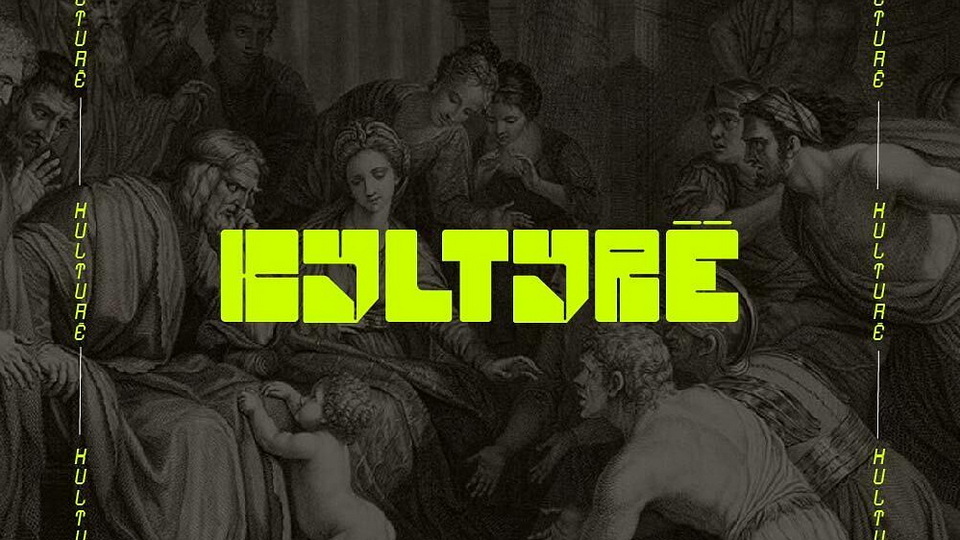
Feb 7, 2025DisplayKYLTYRË Font KYLTYRË is a bold high contrast display typeface. With its unique and strong personality the font is perfect for grabbing attention and standing out from the crowd. Font DetailsDesigned by: Leonit GashiWebsiteLicense: Free for commercial use Download KYLTYRË FontFile size: 5.31 KBCreated: February 16, 2025Updated: February 16, 2025 Download Explore similar fonts DX Brutalist Font Family Degolan Font Hyper Sector Font Hollowthorn Font Christmas Dariona Font Magic Sound Font # Bold# Contemporary# Creative More fonts by Leonit GashiLugati Sans TypefaceProjekt Blackbird Font